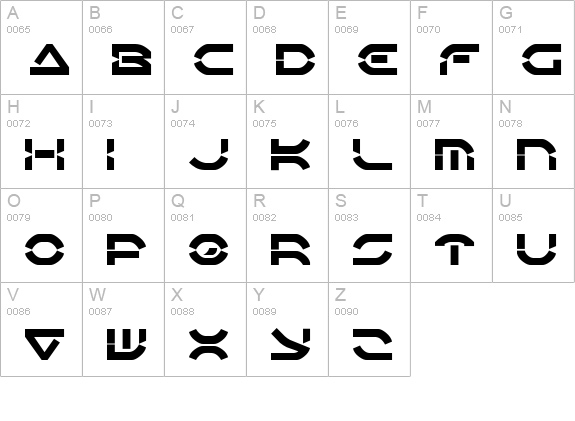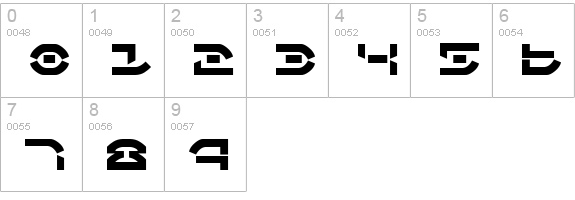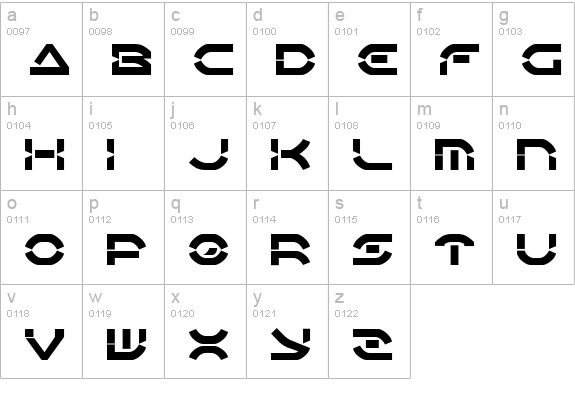
Oberon Deux Font Details
Oberon Deux font is a stunning display typeface that exudes elegance and sophistication. With its intricate details and classic appeal, this font is perfect for projects that require a touch of refinement and style. The clean lines and graceful curves of Oberon Deux make it a versatile choice for a wide range of design applications, from branding to invitations to editorial layouts. What's even better is that Oberon Deux font is available for free download at FontsMarket.com. This means that you can easily access this beautiful typeface and use it in your projects without any cost. Don't miss out on the opportunity to add Oberon Deux to your font collection and elevate your designs with its timeless charm. Download it today and let your creativity shine with this exquisite font.